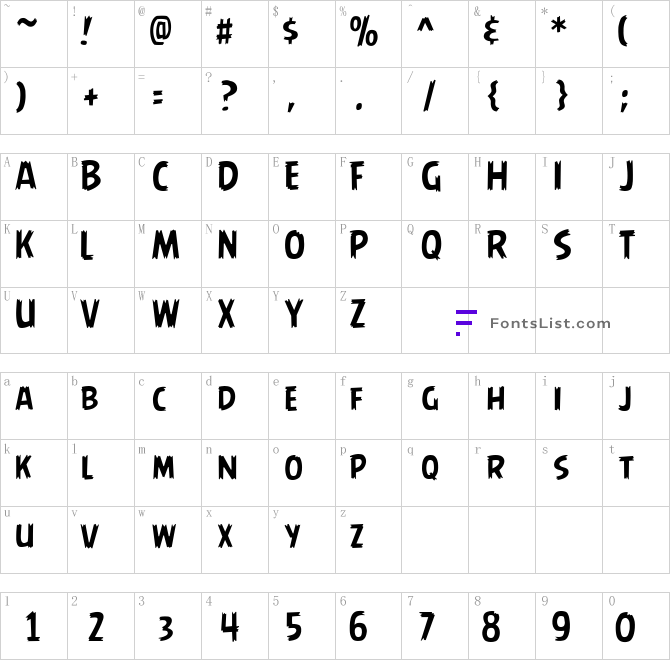
- Font Name:AngryBirds
AngryBirds-Regular-copy-1.ttf is a very beautiful artistic font, AngryBirds-Regular-copy-1.ttf is widely used in the design and printing of various books and pictures,AngryBirds-Regular-copy-1.ttf has a strong visual impact,AngryBirds-Regular-copy-1.ttf is a commonly used font in newspapers, magazines and books, and is used in posters, e-commerce Poster design, store design, logo design, font design and other fields.AngryBirds-Regular-copy-1.